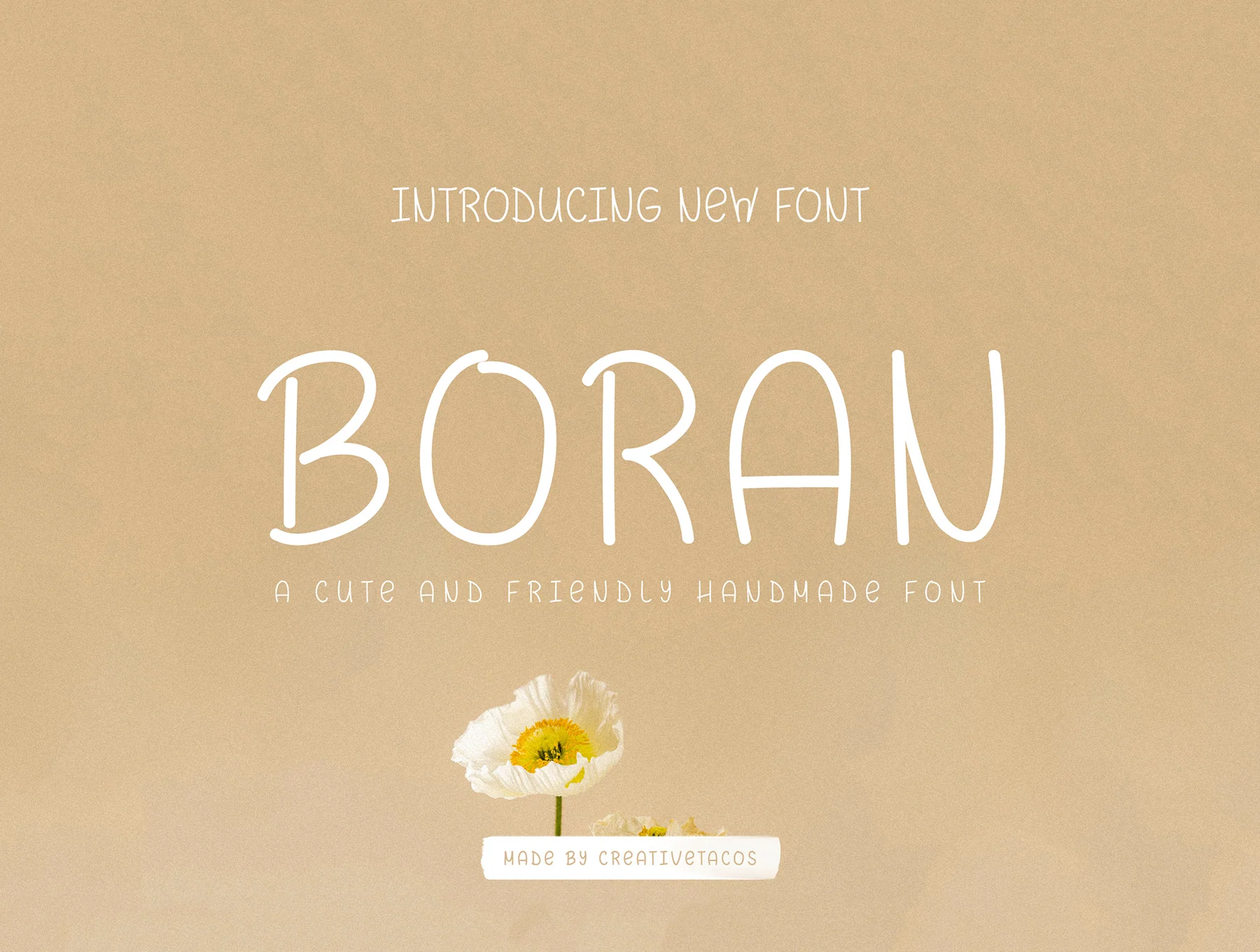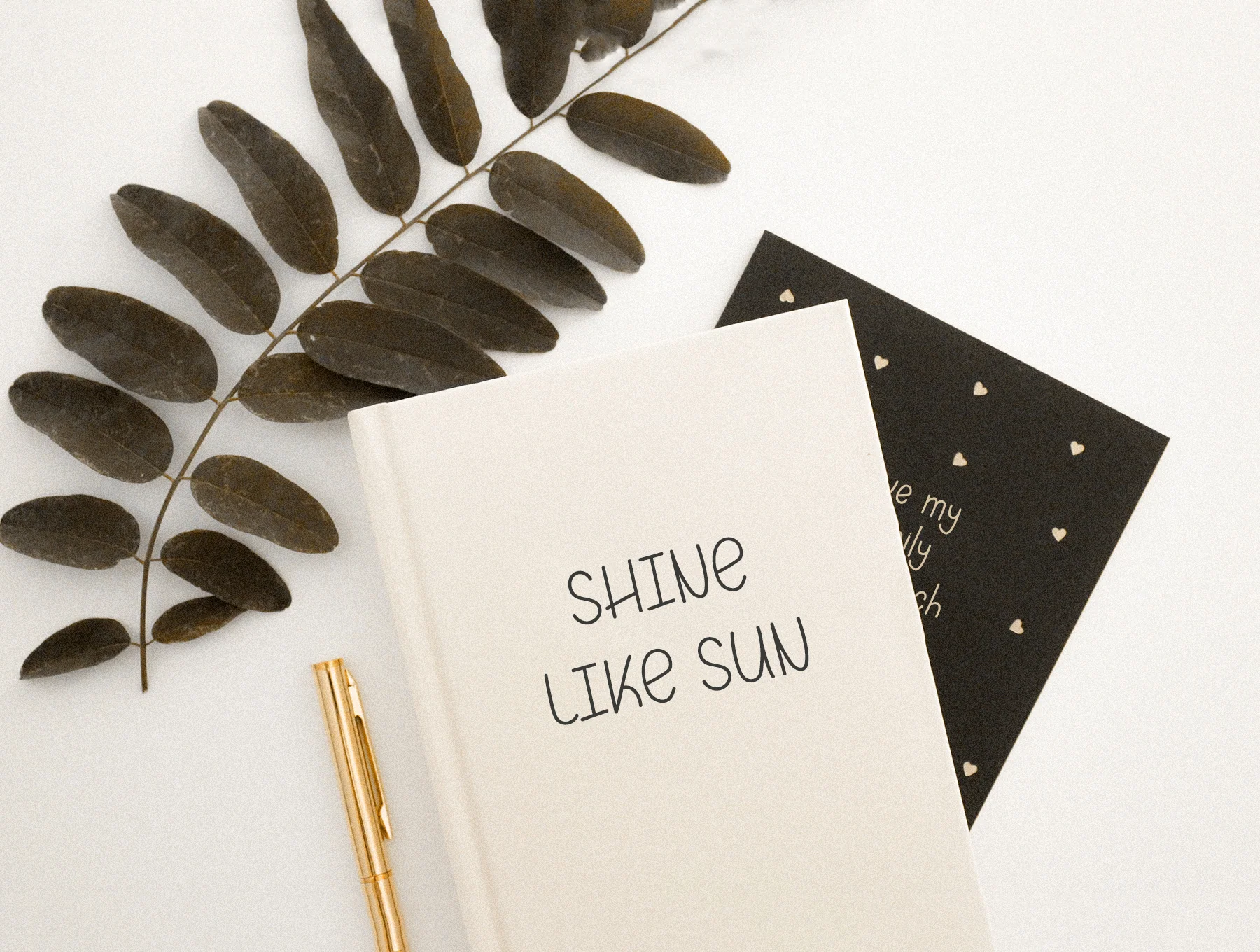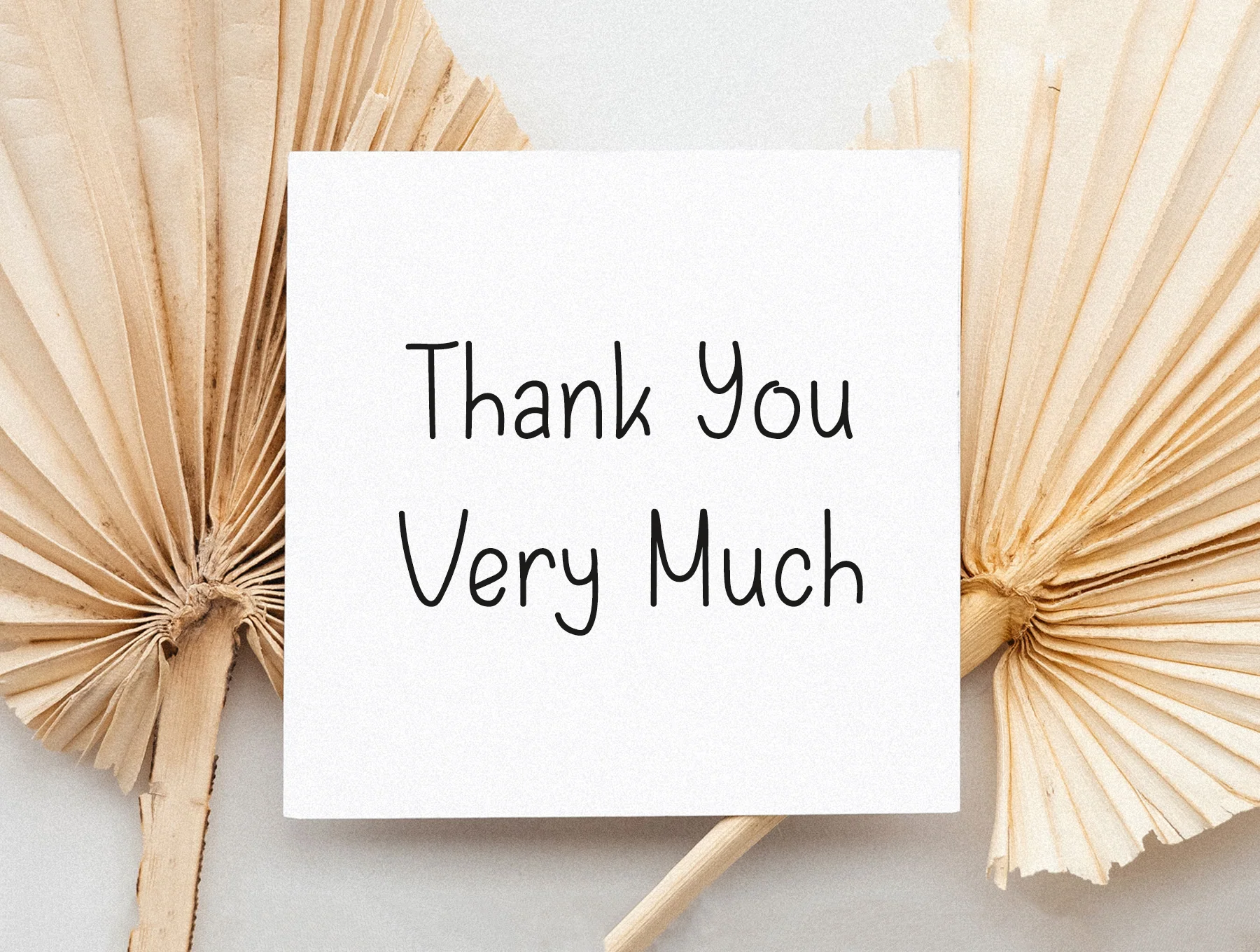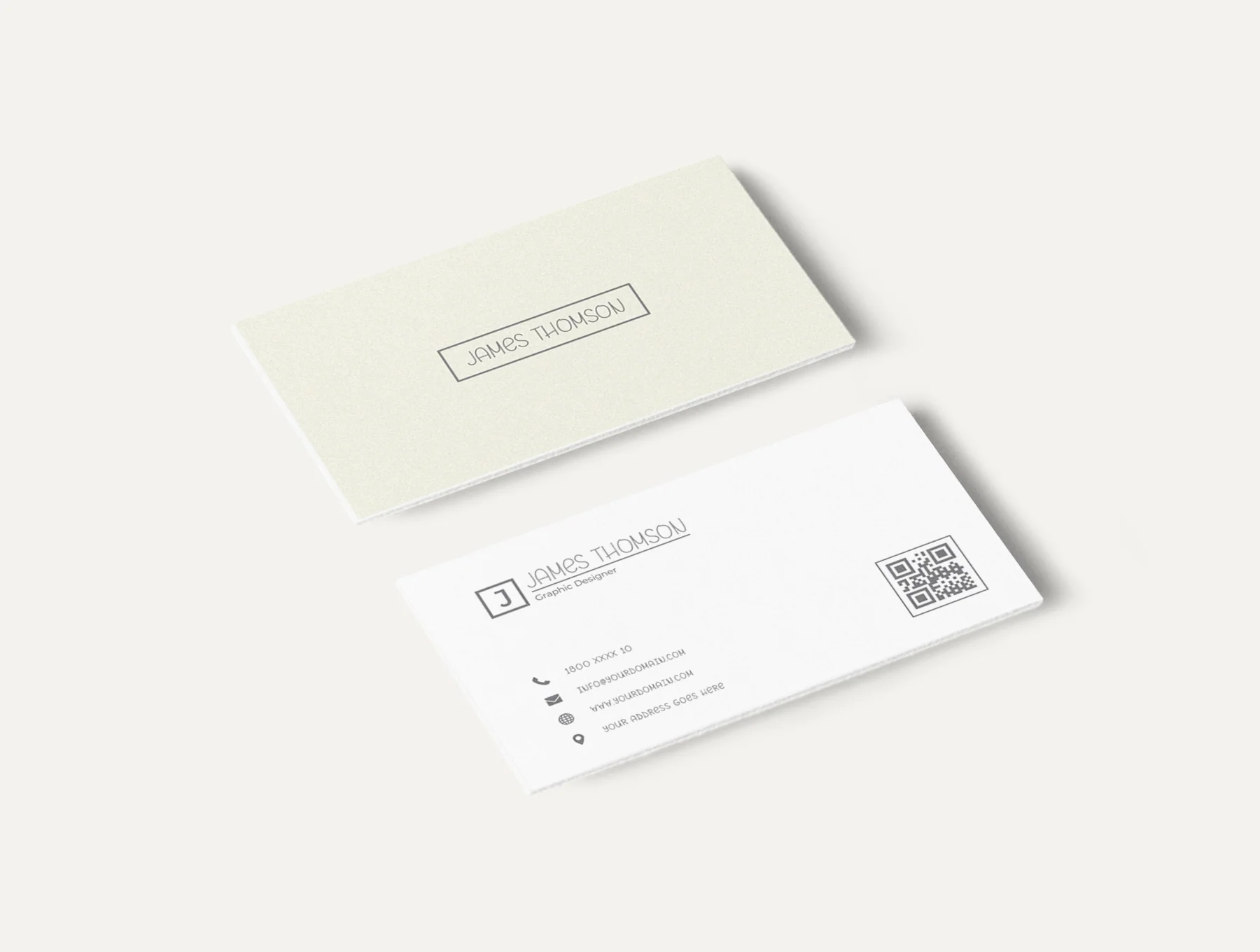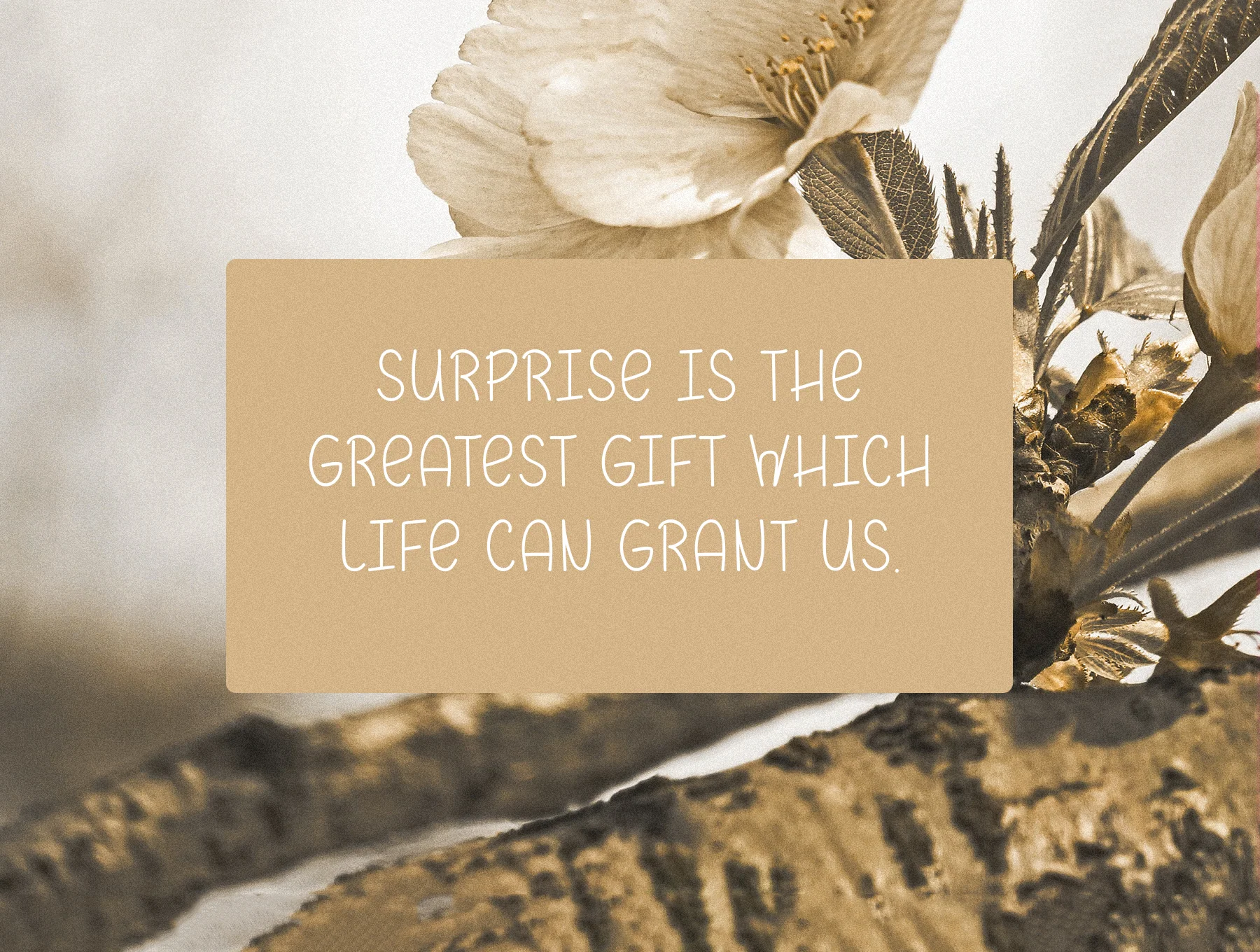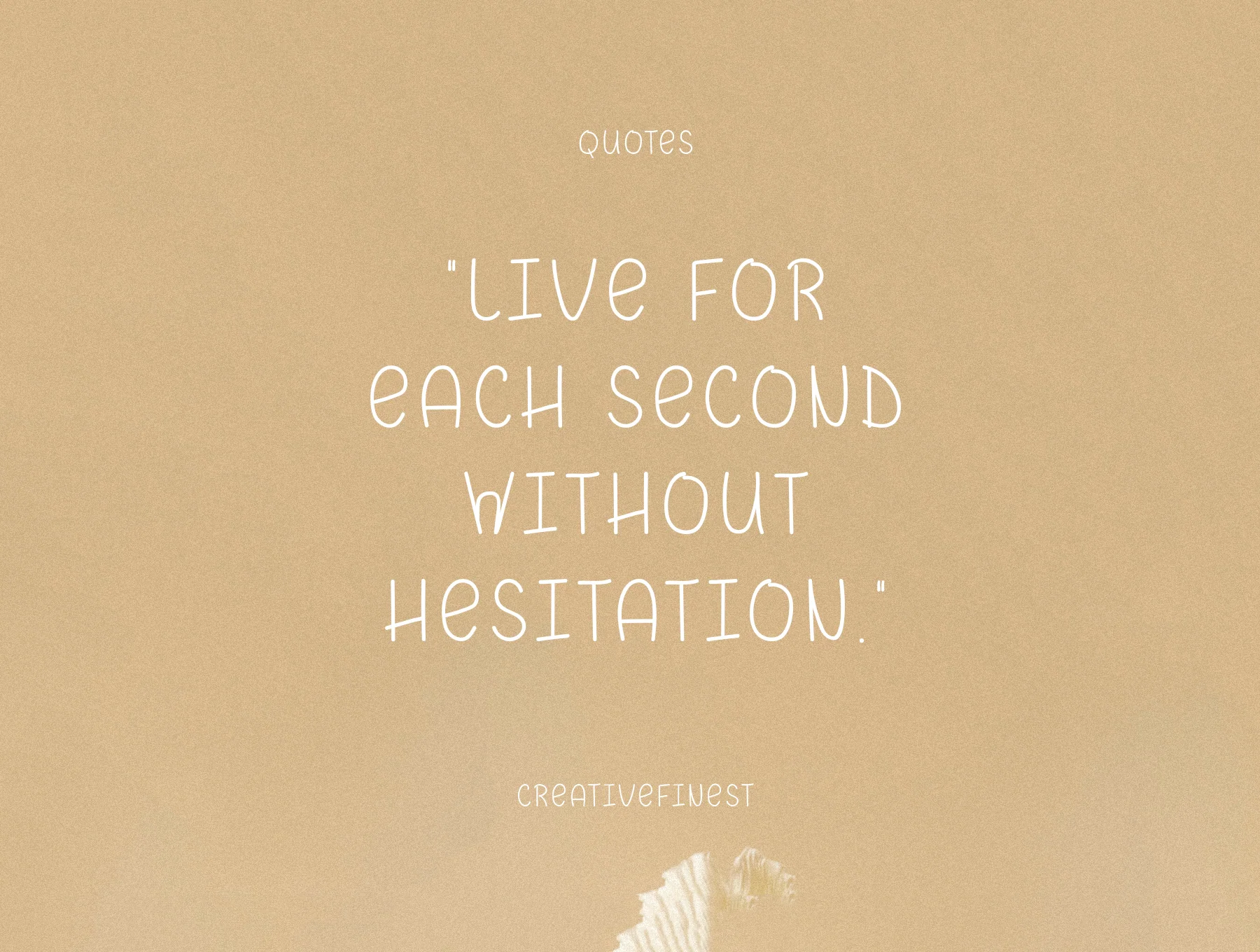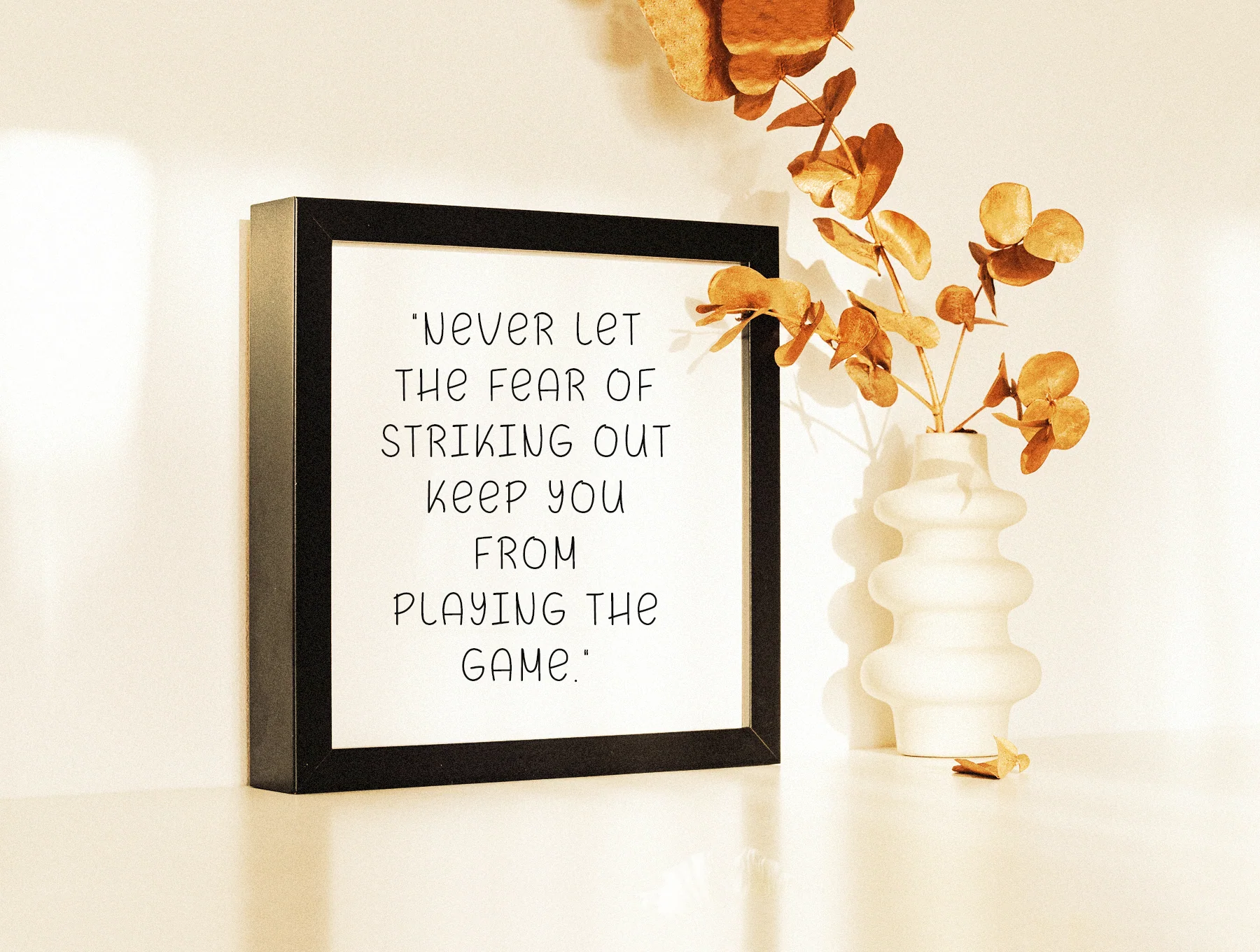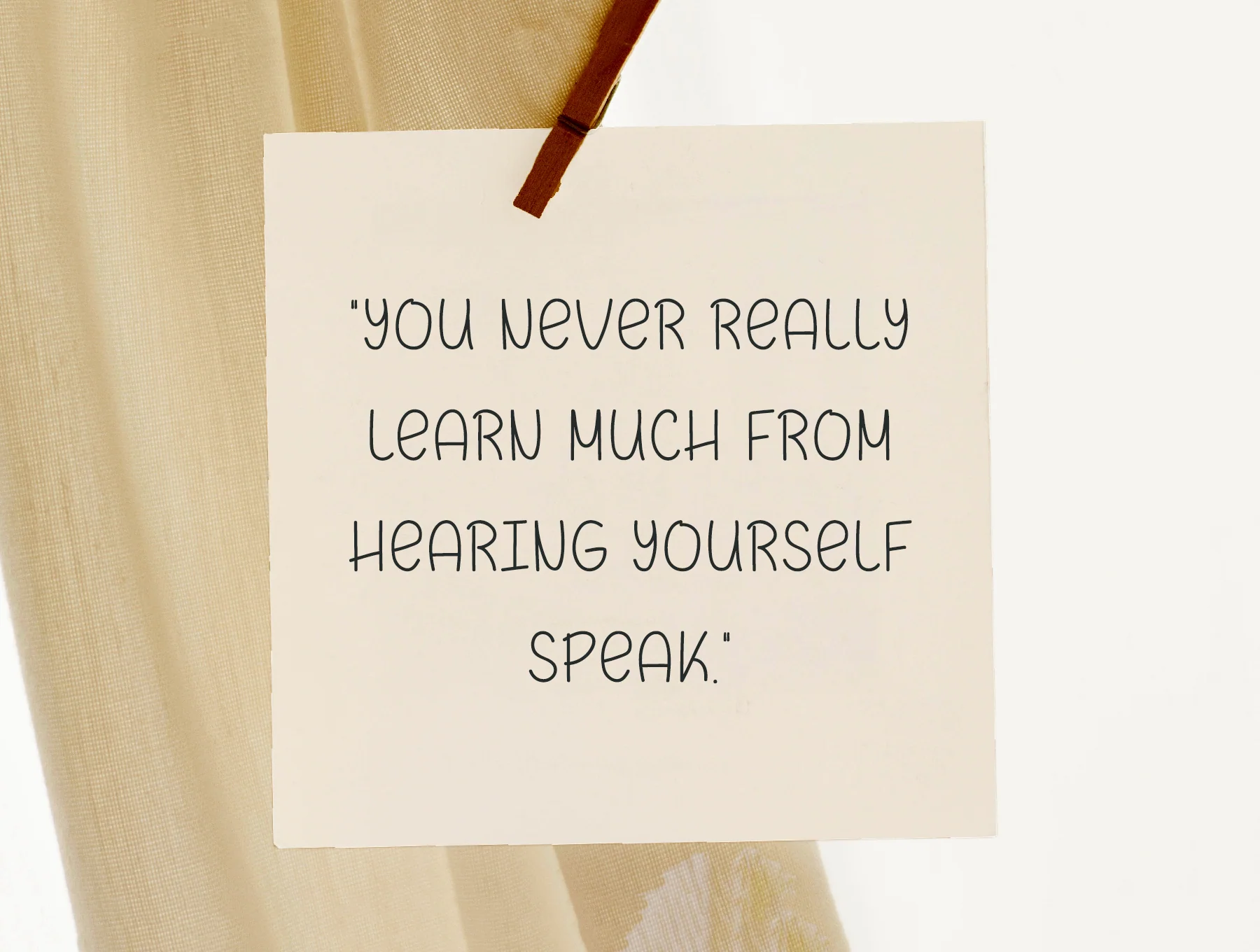
Boran Handmade Font
Boran Handcrafted Typeface
Handcrafted typeface
Standard weight
Boran Handmade Font brings a sweet, playful hand-drawn look that adds charm to designs. It includes regular weight files in OTF, TTF, and web font formats, with uppercase and lowercase characters, numerals, punctuation, symbols, and multilingual support. Ideal for logos, packaging, posters, branding, quotes, invitations, kids’ materials, books, ads, web designs, and more.